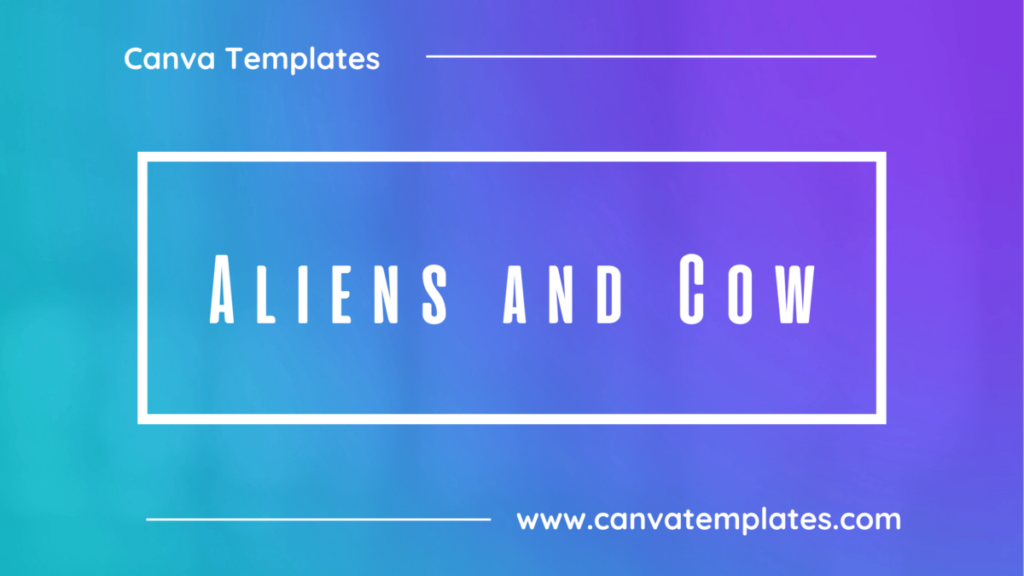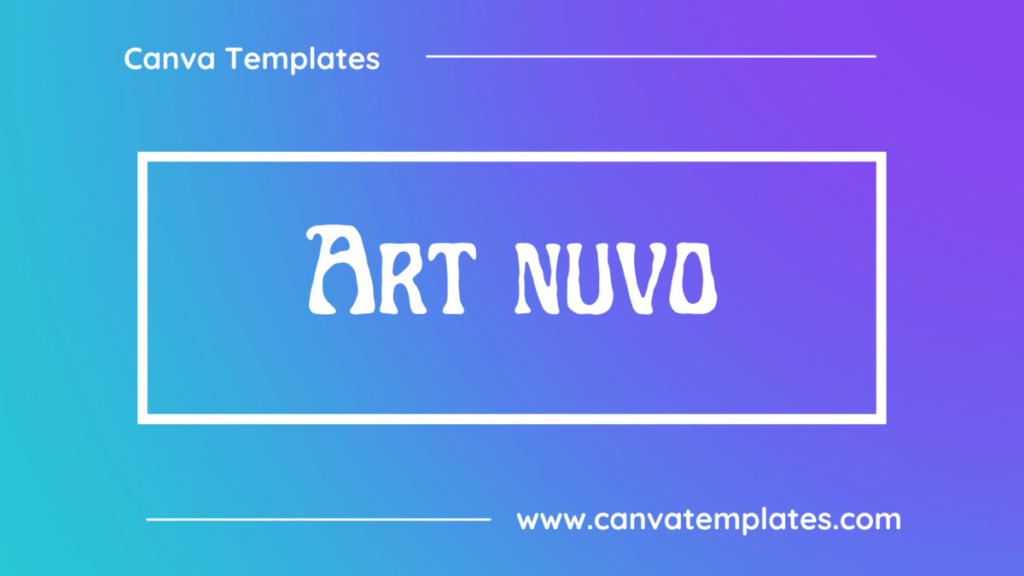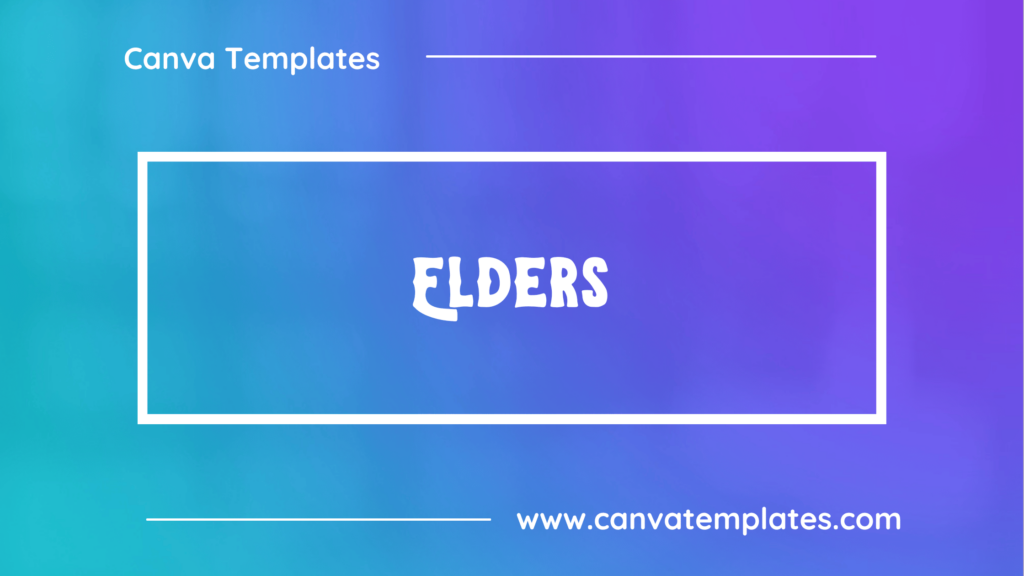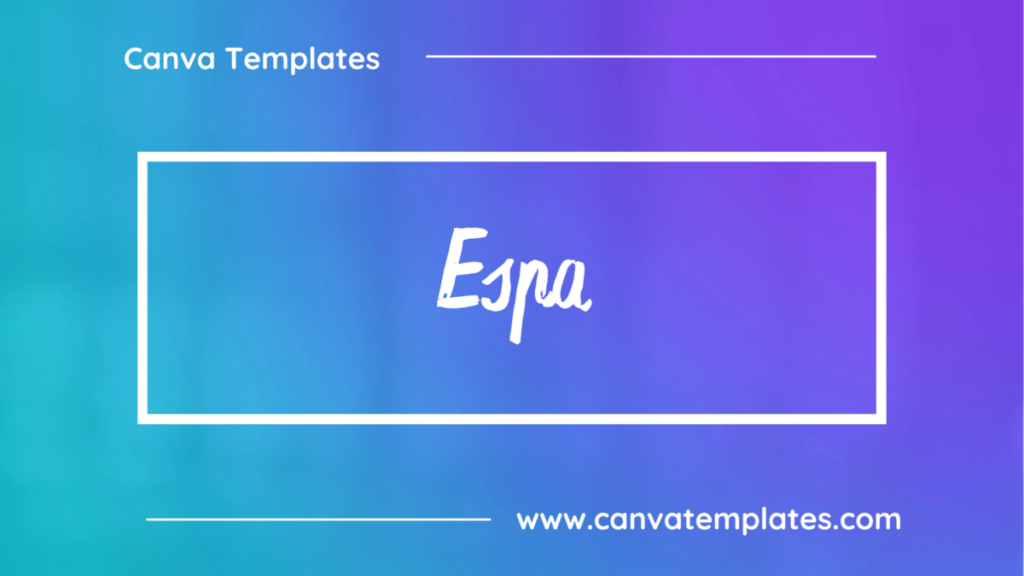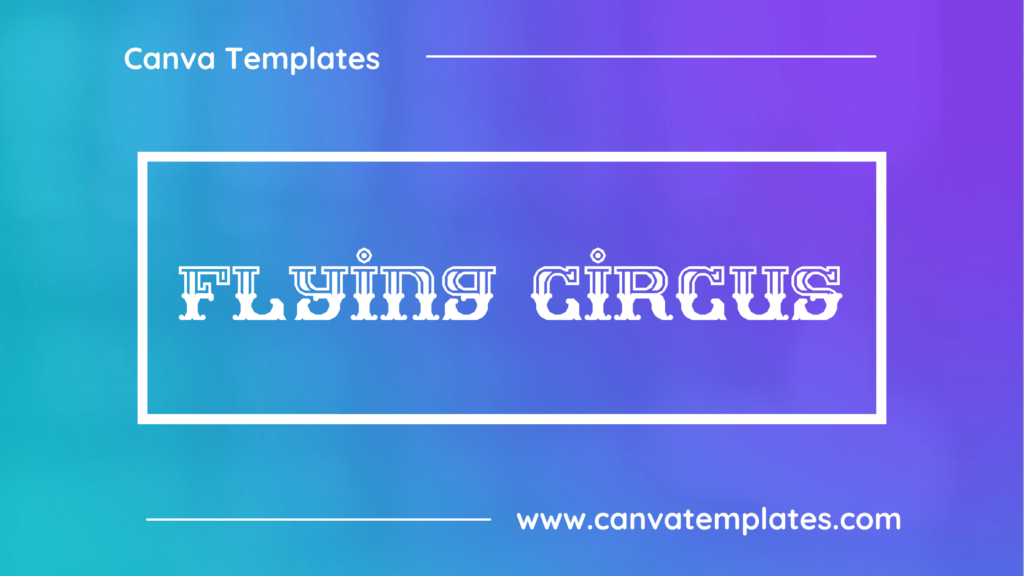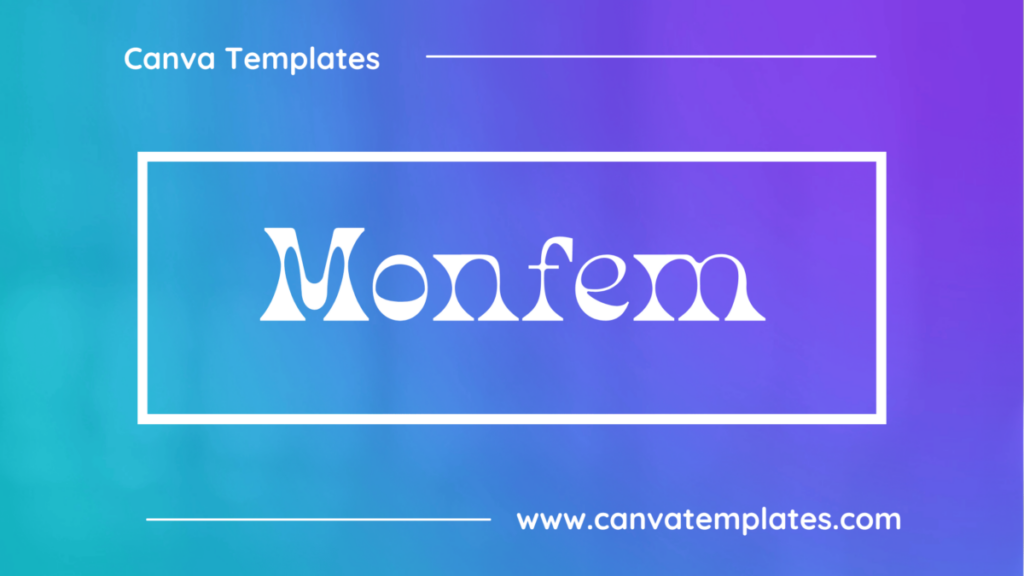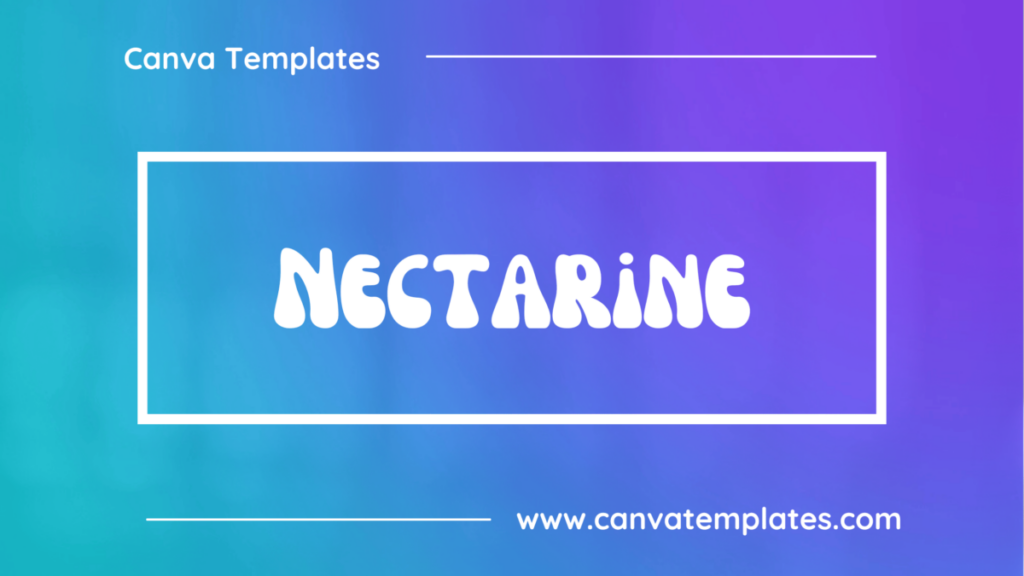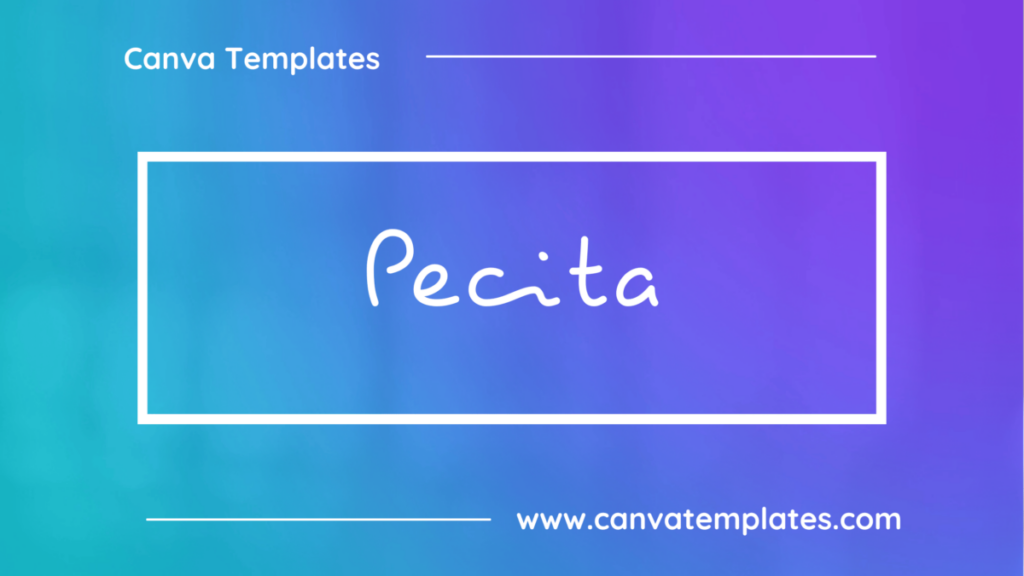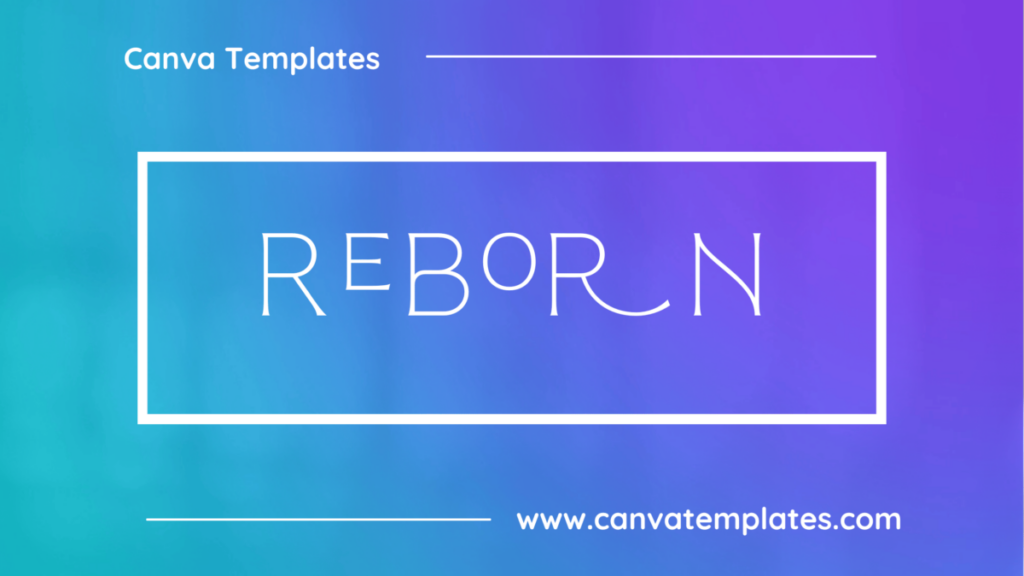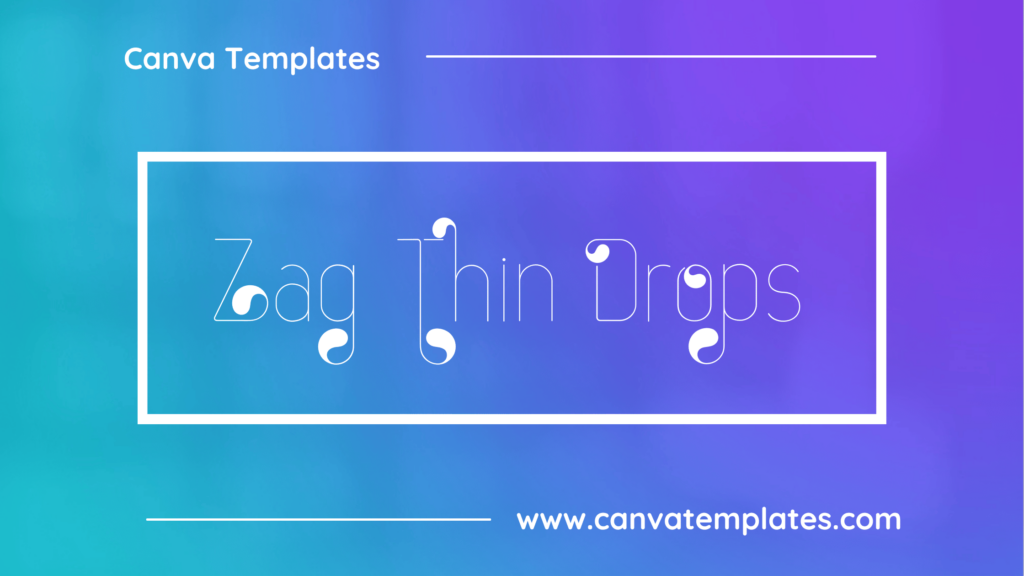
Best Funky Fonts in Canva
Great graphic design is powered by great font selection. But picking great fonts is a challenge most people. Luckily, Canva has made adding great fonts to your designs much easier. In this tutorial, our team of design experts will cover the best funky fonts in Canva.
What is a Funky Font?
Funky style fonts are fonts that are designed to have a playful, fun, and whimsical feel. Some characteristics of funky style fonts include:
1. Bold and vibrant: Funky style fonts often feature bold, vibrant colors and eye-catching designs that stand out and grab attention.
2. Irregular and unusual shapes: These fonts can have irregular and unusual shapes, with letters that look playful, curvy, or asymmetrical.
3. Decorative elements: Funky style fonts can have decorative elements such as stars, swirls, and other embellishments that add to their whimsical and playful feel.
4. Varied spacing: These fonts may have varied spacing between letters, which can give them a more casual and informal feel.
5. Cartoon-inspired: Many funky style fonts are inspired by cartoon characters or comic books, giving them a fun and lighthearted feel.
6. Versatile: Funky style fonts can be used in a variety of designs, from posters and invitations to logos and branding materials.
Best Funky Fonts in Canva
1. Art Nuvo
Art Nuvo is a font characterized by flowing lines, organic shapes, and intricate decorative elements inspired by natural forms, such as flowers, leaves, and vines. The typefaces used in Art Nuvo fonts are highly decorative, featuring intricate swirls, curves, and flourishes that complemented the other design elements in the composition.
2. Aliens and Cow
Aliens and Cow is a monospaced font with a fun, whimsical look. It includes a number of unusual characters and is suitable for use in creative and playful contexts.
3. Monfem
Monfem is a calligraphic script font with a flowing, elegant style. It features graceful, sweeping lines and has a romantic, feminine feel. It is often used in designs that require a touch of sophistication and elegance.
4. Elders
Elders is a unique font and also has vintage display font. Can make it easier to convey the message in your design. Use for awesome display, labeling, clothing, movie scenes, poster, movie title, gigs, album covers, logos, and much more.
5. Reborn
Reborn is a bold and expressive display font with a distressed, hand-drawn style. It features uneven, jagged lines and a grungy, textured appearance that is perfect for designs with a rebellious, edgy feel.
6. Flying Circus
Flying Circus is a playful and whimsical font with a vintage circus-style design. Its bold and highly stylized letterforms give it a fun and energetic feel, making it perfect for creative designs and branding related to entertainment or the arts. It works well for logos, headlines, and editorial designs.
7. Zag Thin Drops
Zag Thin Drops is a modern and elegant sans-serif font with a thin and delicate design. Its geometric shapes give it a contemporary feel, while its thin strokes make it highly legible and easy to read. It’s a great choice for creating clean and sophisticated designs, especially in fashion or editorial projects.
8. Nectarine
Nectarine is a playful and informal script font with a bouncy, handwritten style. It features a mix of thick and thin strokes and has a slight slant to its letterforms, giving it a dynamic and energetic feel.
9. Pecita
Espa is a playful and whimsical font that is great for designs aimed at children or that require a fun and lighthearted feel. It has a hand-drawn quality to it and is often used in designs such as party invitations or greeting cards.
Conclusion